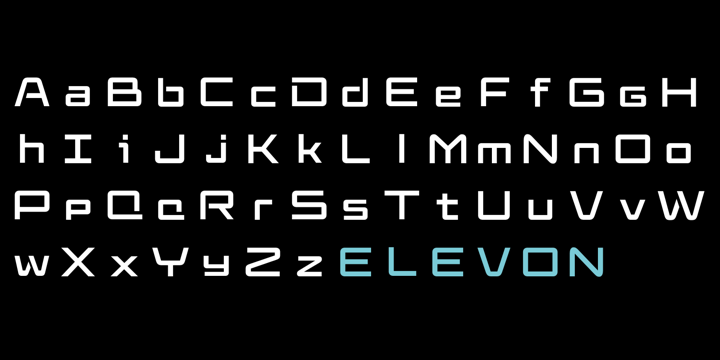
Inspired by the science fiction genre, Elevon is a font that belongs amongst the stars. It has a square construction that strictly adheres to a grid, and this gives a futuristic feel to the letterforms. Over 700 glyphs were created for Elevon, each one starkly beautiful with precise angular lines. The rounded corners prevent the font from becoming too harshly clinical, but retain the basic square shape beneath. It manages to combine the soft and hard together to create a typeface with real character, that is often pleasantly surprising in its wordforms. The Cyrillic and Greek scripts in particular have an alien beauty in their unfamiliar letter shapes. More…
The Corporate edition of the Elevon font family includes full Latin, Greek and Cyrillic character sets. A Standard Edition is also available.